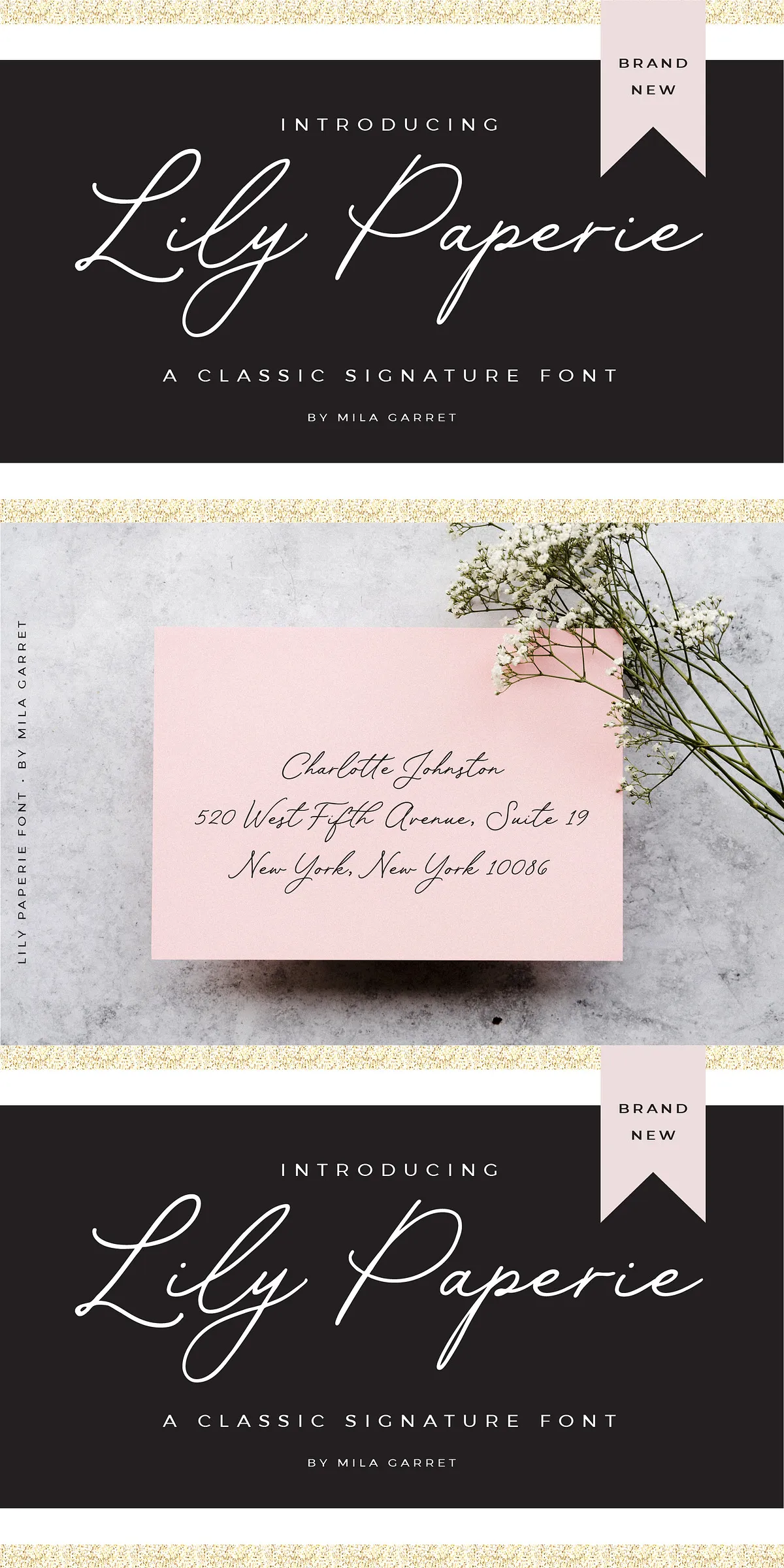
Lily Paperie Signature Logo Script
Step into the world of refined simplicity with Lily Paperie – a clean, monoline handwritten signature font that delivers timeless grace without clutter. Designed for creators who value clarity, authenticity, and understated beauty, Lily Paperie transforms your message into a visual whisper of elegance. Whether you’re crafting a wedding invitation, designing a brand logo, or crafting social media visuals, this font speaks with quiet confidence and effortless style.
Effortless Simplicity, Built for Real-World Impact
Why choose complexity when elegance lies in restraint? Lily Paperie strips away the noise and focuses on what truly matters: clear, expressive line work. Its perfectly balanced monoline stroke ensures every character maintains visual harmony, while its handwritten feel adds a personal, human touch that digital perfection often lacks.
Use Lily Paperie to:
• Create unforgettable wedding invitations and envelopes – Let your couple’s name shine with a touch of quiet sophistication.
• Build modern, minimalist logos and brand identities – Stand out with a signature-style mark that communicates trust and refinement.
• Design premium website headers and navigation – Add a human element to your digital presence with a font that feels approachable yet polished.
• Produce striking social media graphics and posts – Make your captions and quotes pop with a touch of artisanal authenticity.
• Develop stylish packaging and stationery – Elevate your product with a clean, signature-style aesthetic.
Powerful Details Behind the Minimalism
While Lily Paperie appears simple, it’s packed with thoughtful design elements that elevate its usability and visual richness:
• 9 Built-in Ligatures – Connect letters naturally for a flowing, hand-written rhythm that mimics real penmanship.
• 5 Alternate Lowercase ‘t’ Glyphs – Adjust crossbar length for better visual balance and rhythm in different contexts. Choose the version that complements your layout.
Use It Anywhere, Anytime
From print to digital, Lily Paperie adapts effortlessly:
• Use it in presentation decks, email newsletters, and digital flyers to create a consistent, human-centered brand tone.
• Pair it with a clean sans-serif font (like Montserrat, Lato, or Helvetica Neue) to create a powerful typographic contrast – the handwritten elegance of Lily Paperie balanced by sharp, modern clarity.